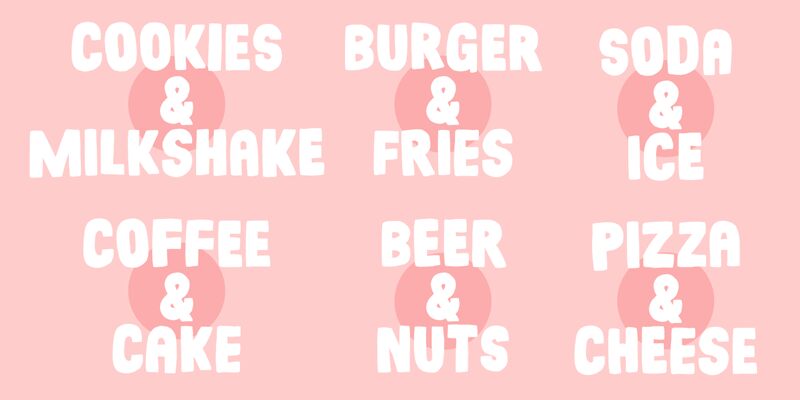
Sunshine Formula, created by the talented Pizzadude, is a playful and bold display font perfect for any project that requires a fun and lighthearted touch. Its extra-bold weight combined with its semi-condensed width gives it a strong presence on the page while still maintaining legibility. The cartoon-style design lends itself well to children's books, posters, and packaging designs. However, it's not limited to just those projects! Sunshine Formula would also work well for branding materials or even as a headline font on websites. Let this font bring some sunshine into your next project!